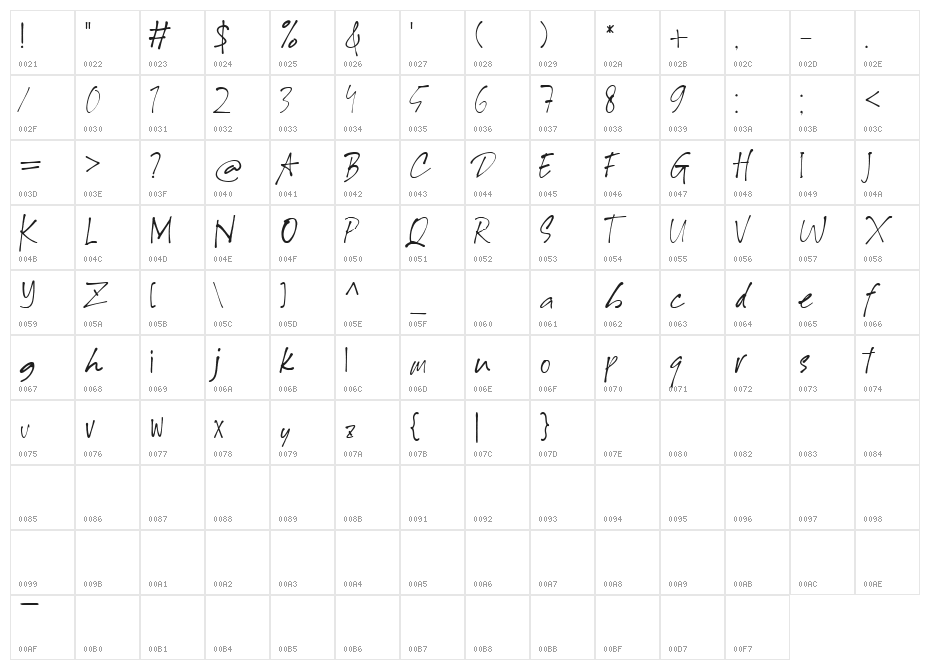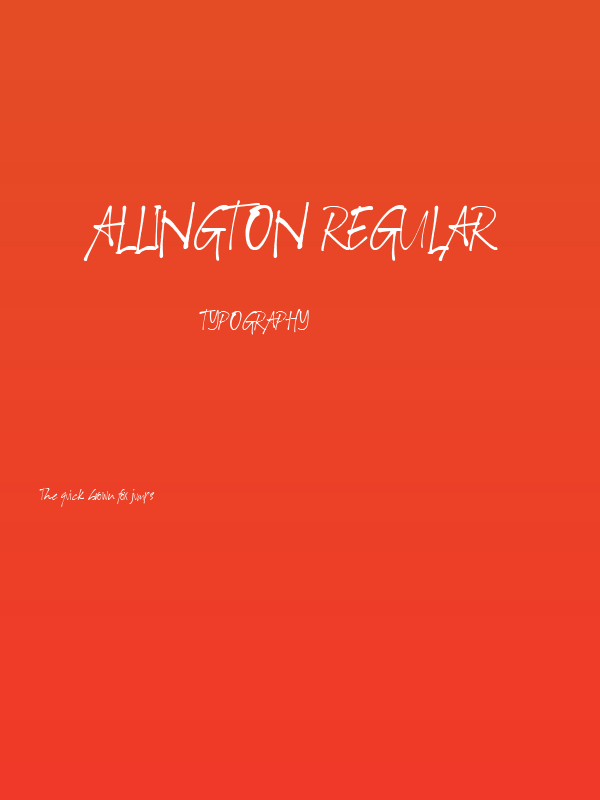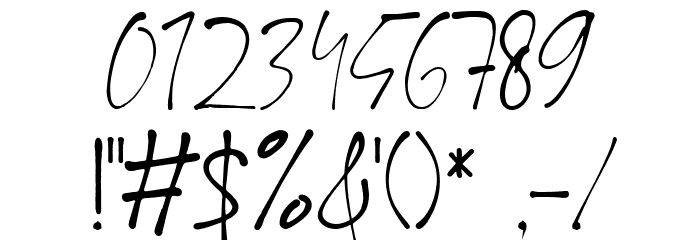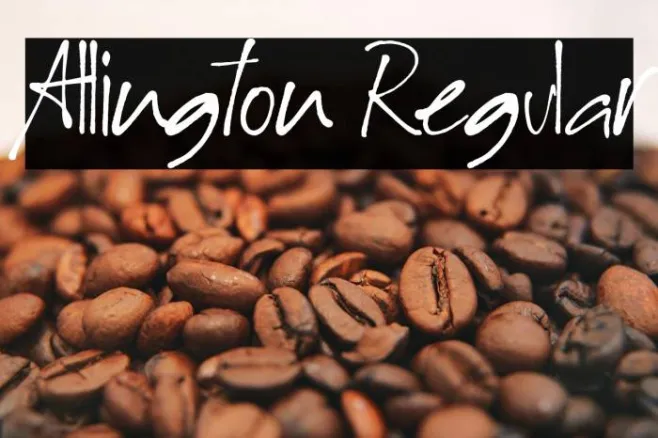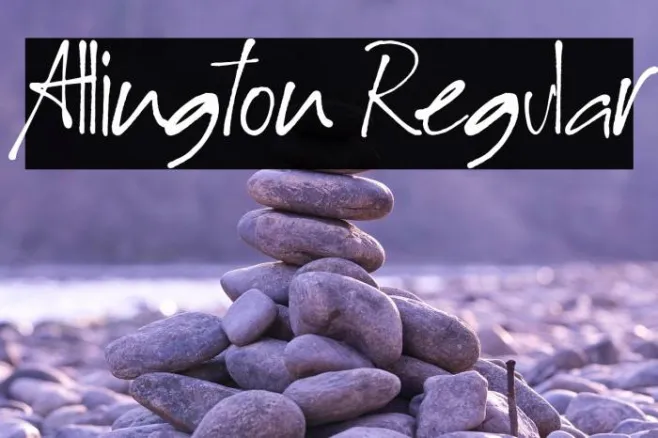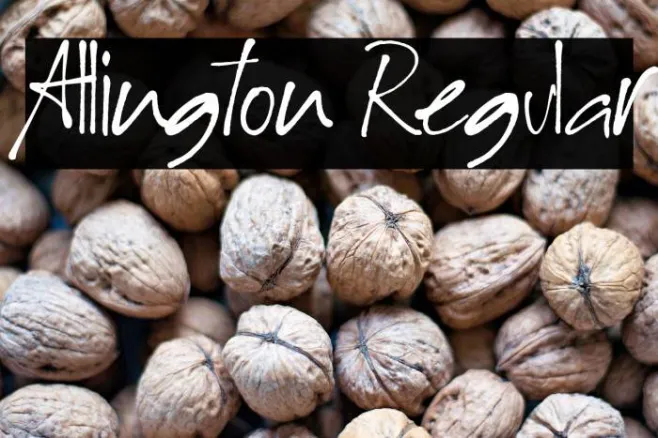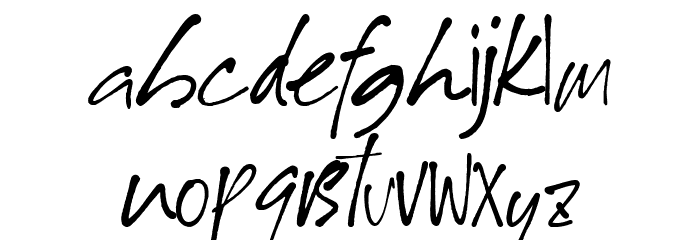
Allington Regular Font
Allington Regular Description
This font features a dynamic and expressive handwritten style, characterized by its fluid strokes and organic flow. The uppercase letters exhibit a bold and confident presence, while the lowercase letters maintain a consistent rhythm with a slightly more delicate touch. The numerals are distinct and easily readable, complementing the overall aesthetic. Special characters are integrated seamlessly, maintaining the handwritten feel. The font's irregularities and variations in stroke width add to its charm, making it ideal for projects that require a personal and artistic touch.